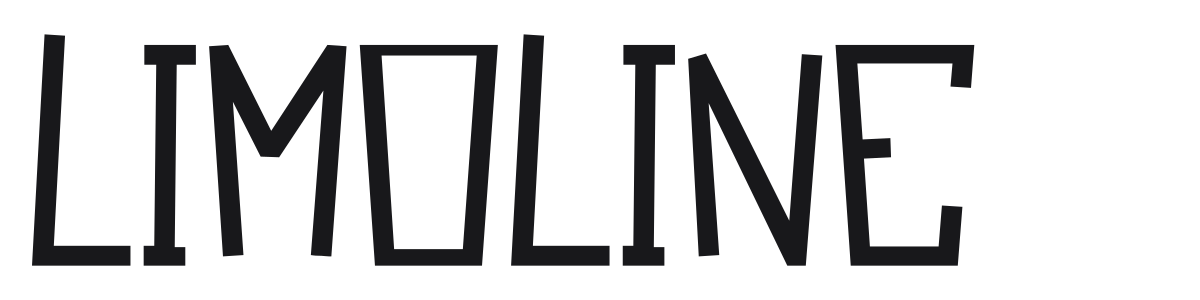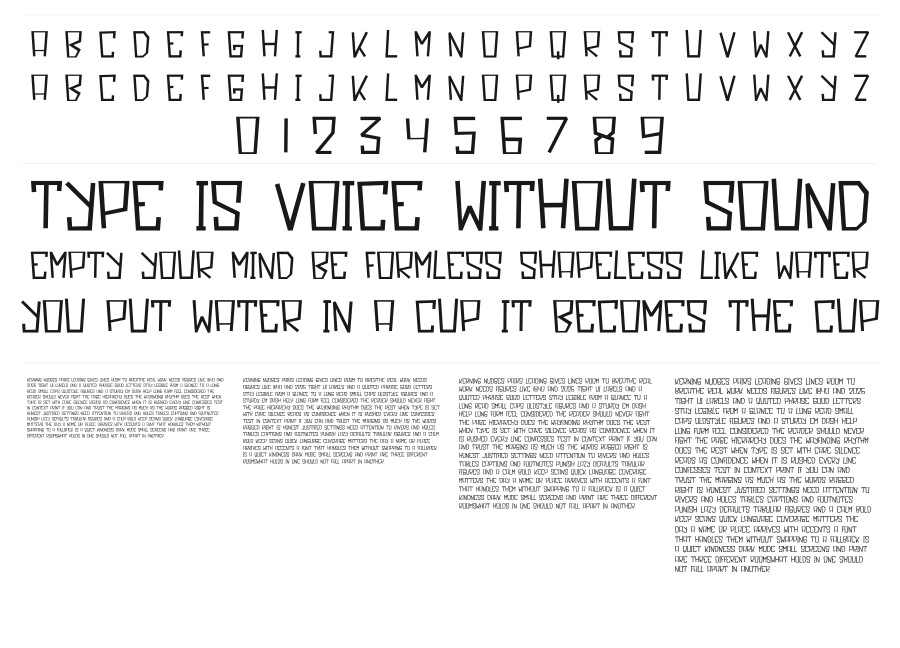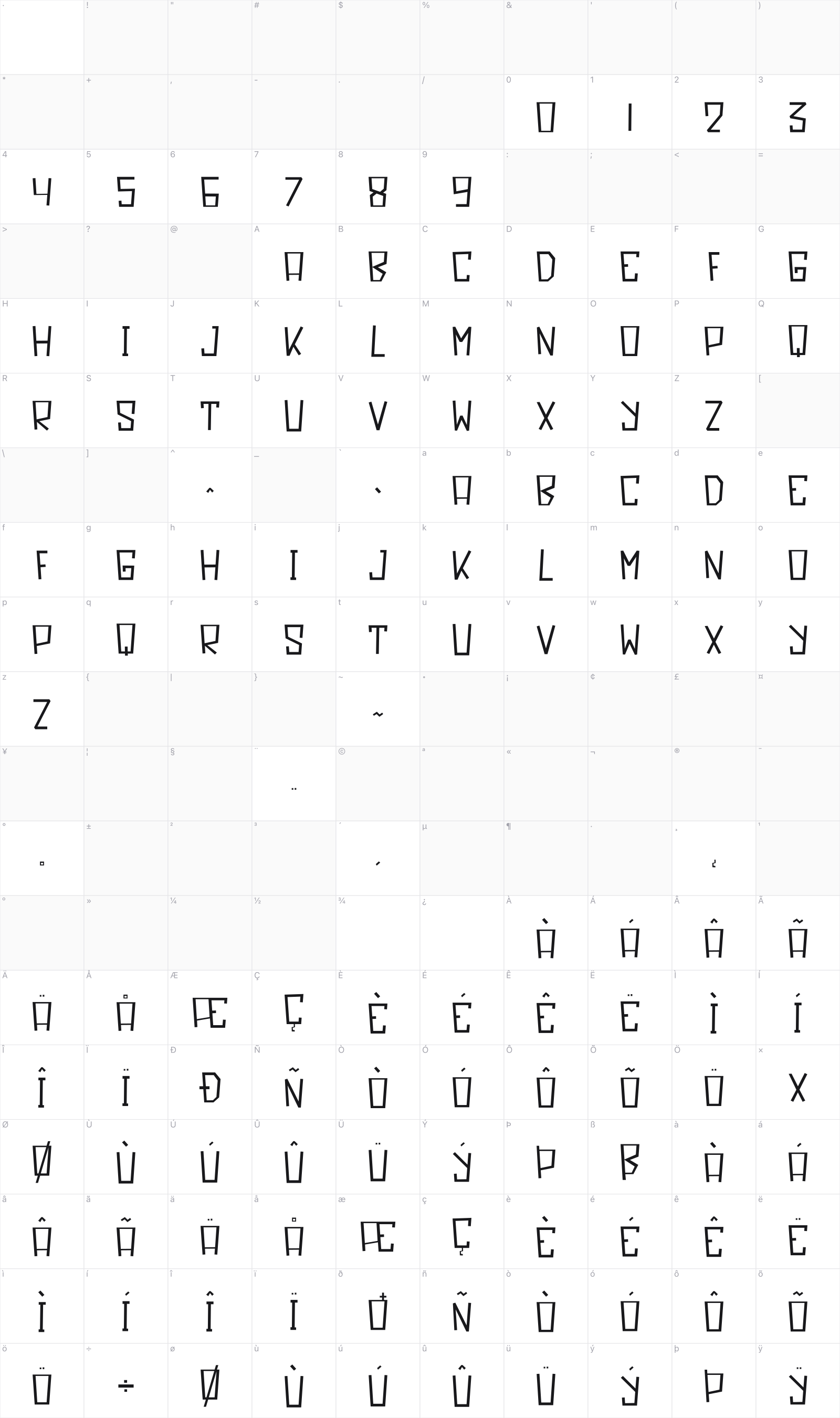
Limoline
Limoline is a tall, narrow geometric sans with a striking constructivist character built from rectangular, segmented strokes. Its letters feel like they were assembled from building blocks, with internal horizontal cuts and squared terminals that give each character a distinctive, grid-like quality. Strong at large sizes for posters, logos, and titles where an industrial retro edge is needed.